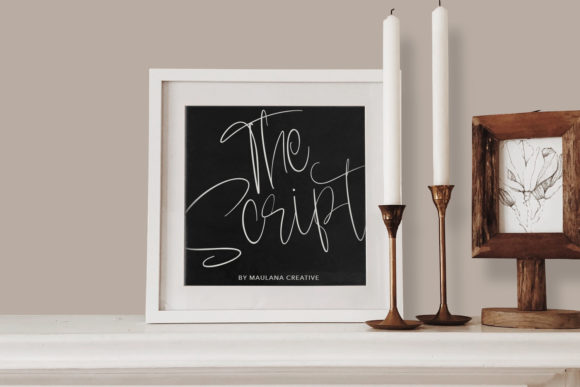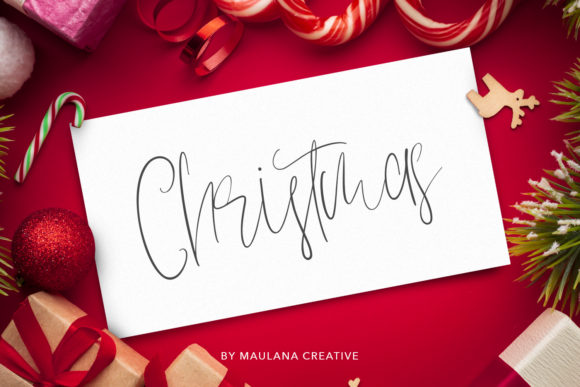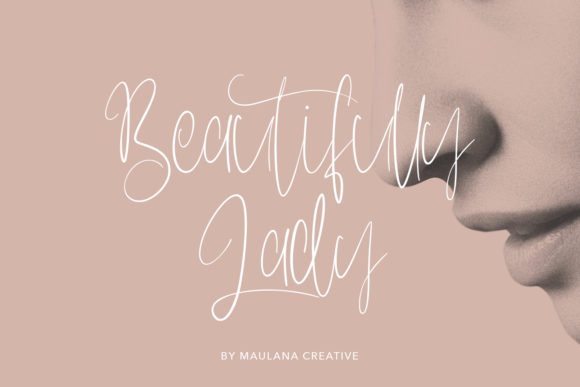
Introduction to Sentilum Font
Sentilum is a relaxed and lovely handwritten font.
Key Features of Sentilum Font
Why Choose Sentilum Font?
Sentilum Font offers exceptional quality and versatility, making it a valuable addition to your design toolkit. Whether you’re creating for personal projects or commercial use, Sentilum Font delivers professional results.